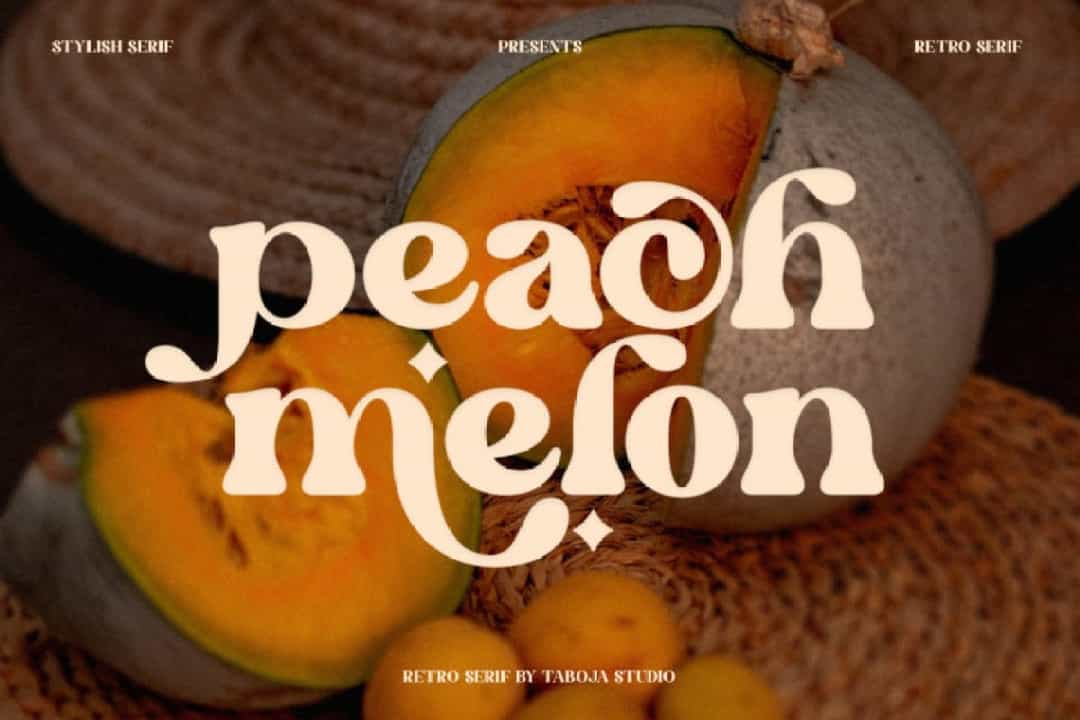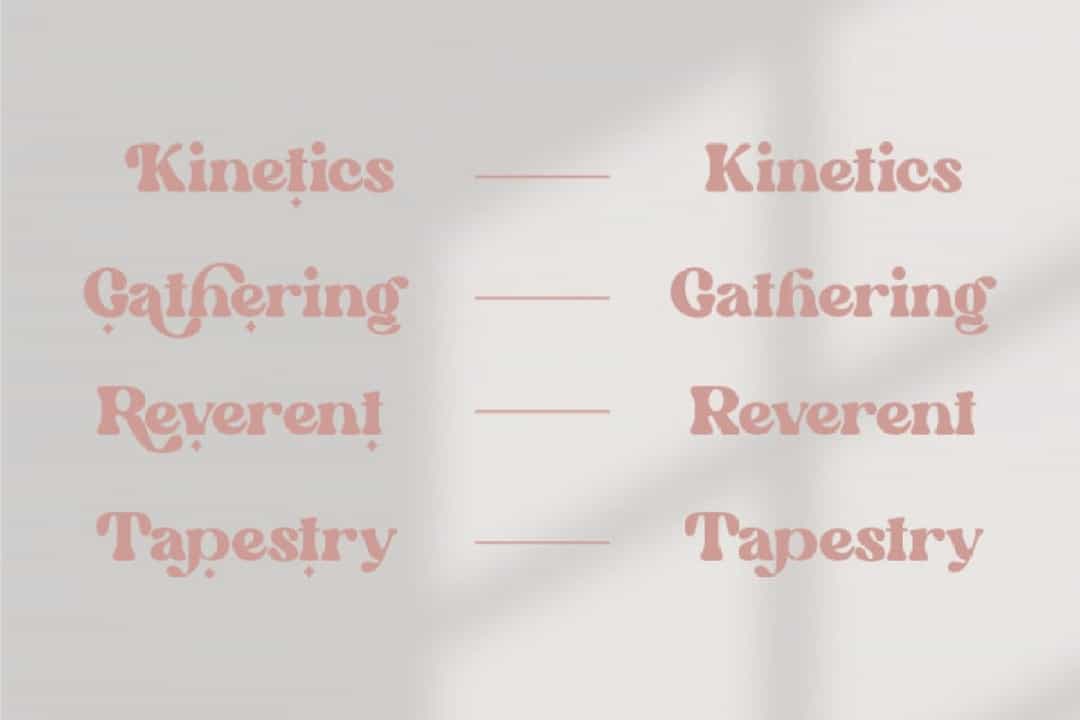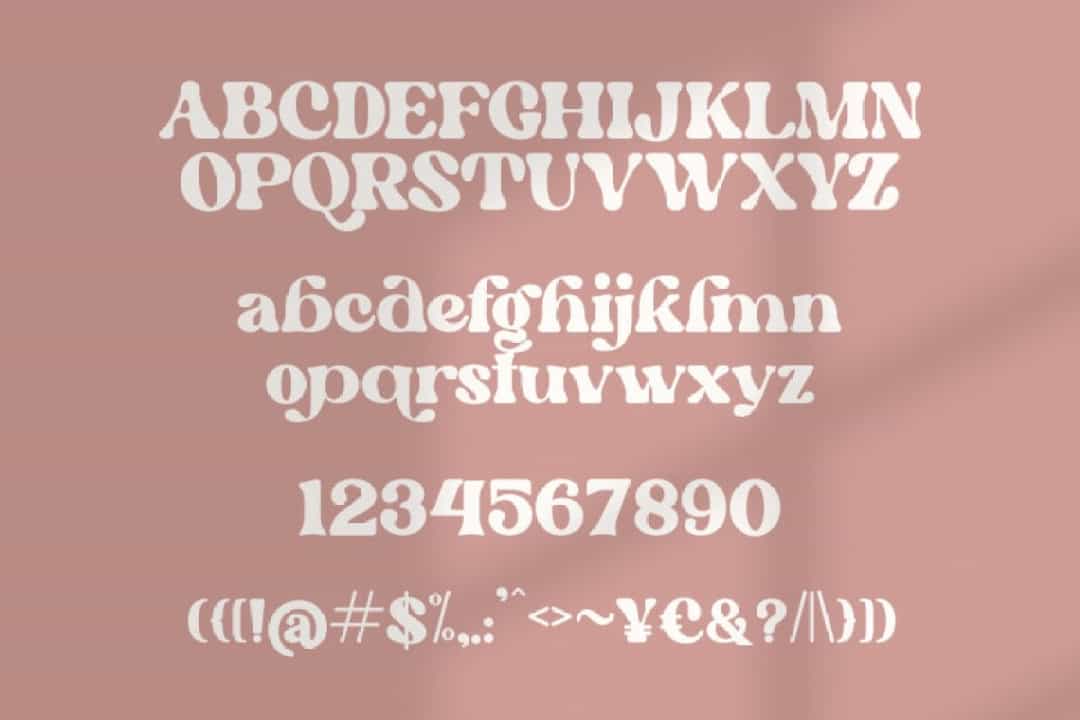
Peach Melon Vintage Serif Typeface was designed to meet all your design needs with its timeless elegance and playful grooviness blending perfectly together for an eye-catching visual experience. This font offers classic serif style combined with its quirky side for an exciting visual journey!